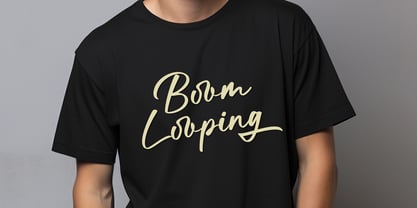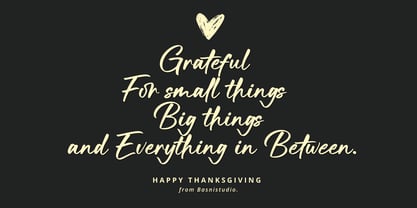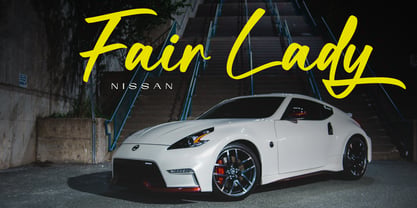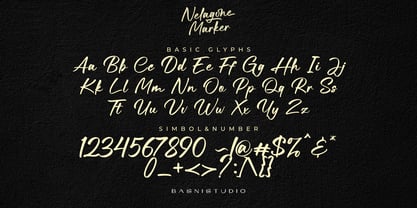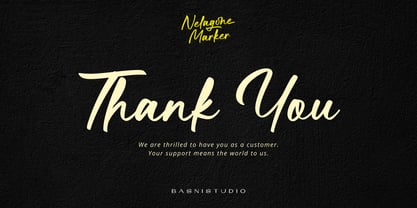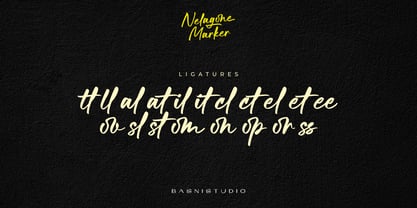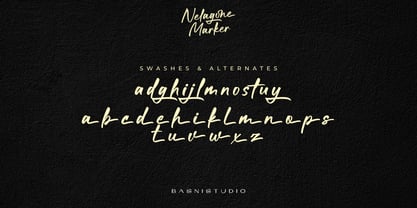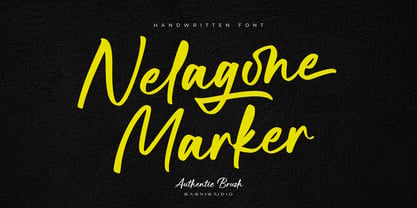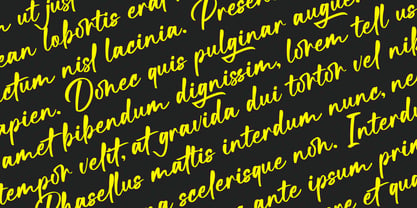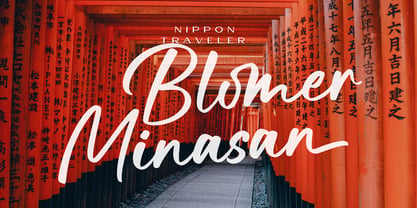
Nelagone Marker
von Basnistudio
Die Schriftfamilie Nelagone Marker wurde von Bery Arisandi entworfen und von Basnistudio veröffentlicht. Nelagone Marker enthält 1 Stile. Mehr über diese Familie
Nelagone Marker – Casual Marker Font is a bold handwritten typeface inspired by real marker strokes. It brings a fun, energetic, and expressive feel to your designs, making them stand out with a casual yet confident personality. Perfect for projects that need strong impact and easy readability while keeping a handmade touch. Perfect for: Posters & headlines Branding & logos Packaging design Social media content T-shirts & merchandise Quotes & greeting cards Features: Uppercase & lowercase letters Swashes & Ligatures Numbers & punctuation Multilingual support (depending on file) Easy to install and use If you have any questions please don’t hesitate to contact me Thank you
Designer: Bery Arisandi
Foundry: Basnistudio